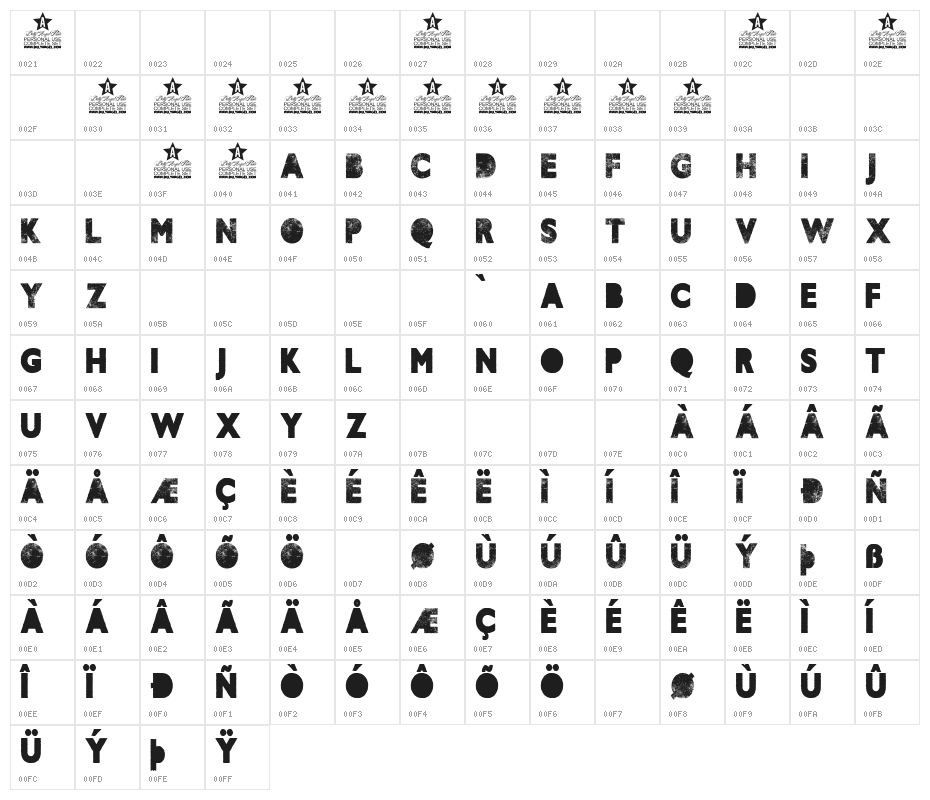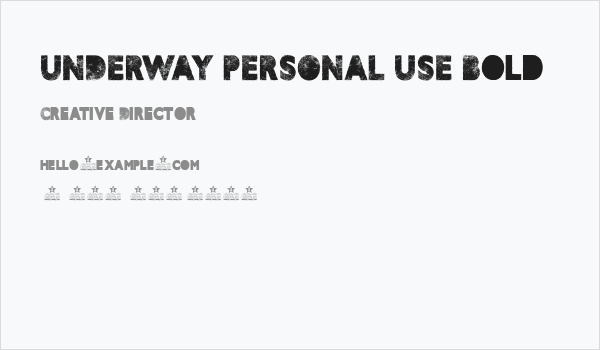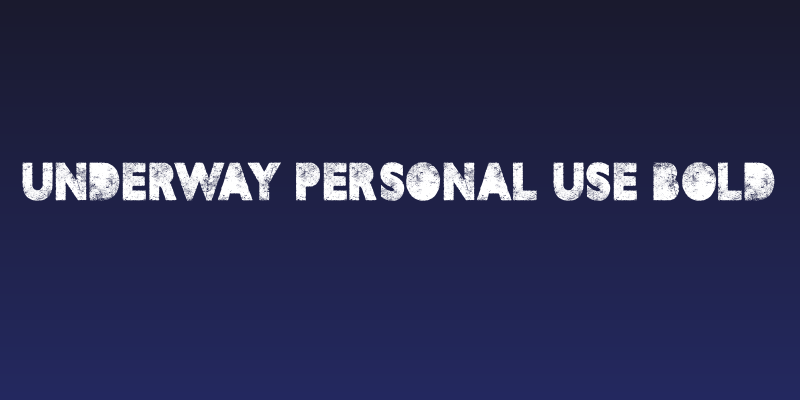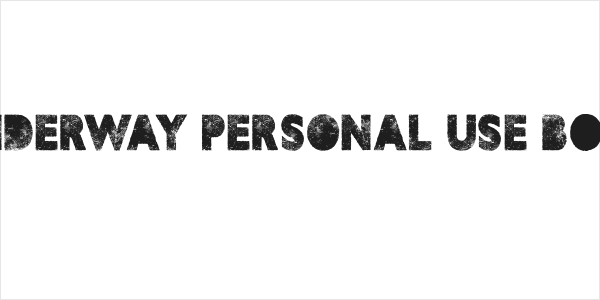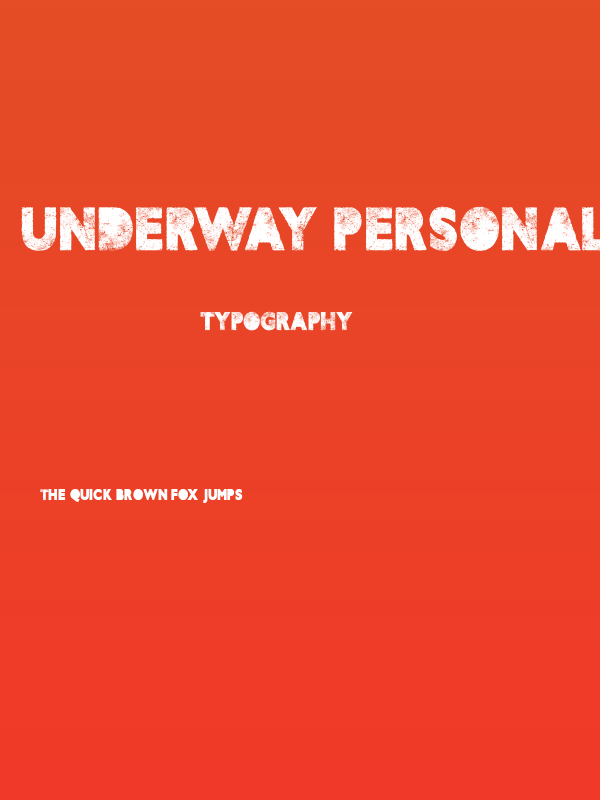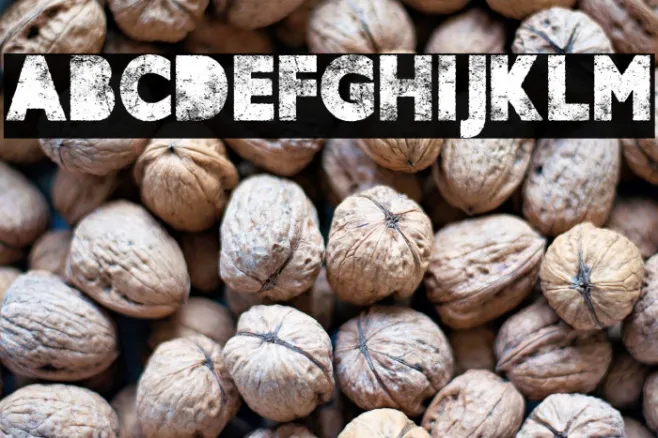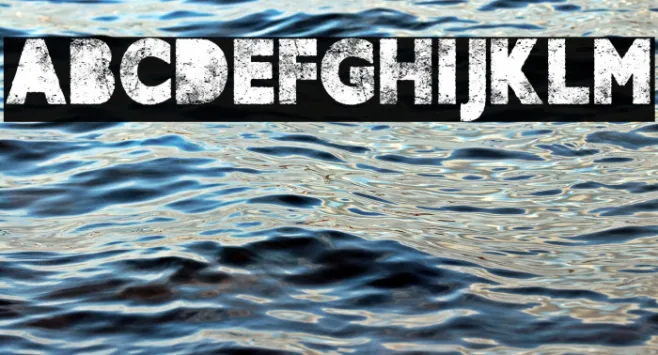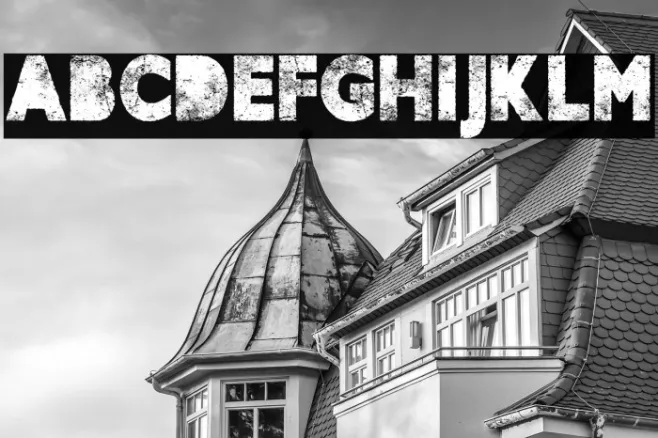
UNDERWAY PERSONAL USE Bold Font
UNDERWAY PERSONAL USE Bold Description
This font features a bold and distressed style, giving it a rugged and textured appearance. The uppercase letters are prominently displayed with a rough, weathered look, making it ideal for designs that require a vintage or grunge aesthetic. The characters are bold and impactful, with a consistent texture throughout, adding a unique character to each letter. This font is suitable for projects that aim to convey strength and edginess, with its bold presence and distinctive style.
| Proposed Projects | Ideal for posters, album covers, branding, and any design needing a vintage or grunge aesthetic. |